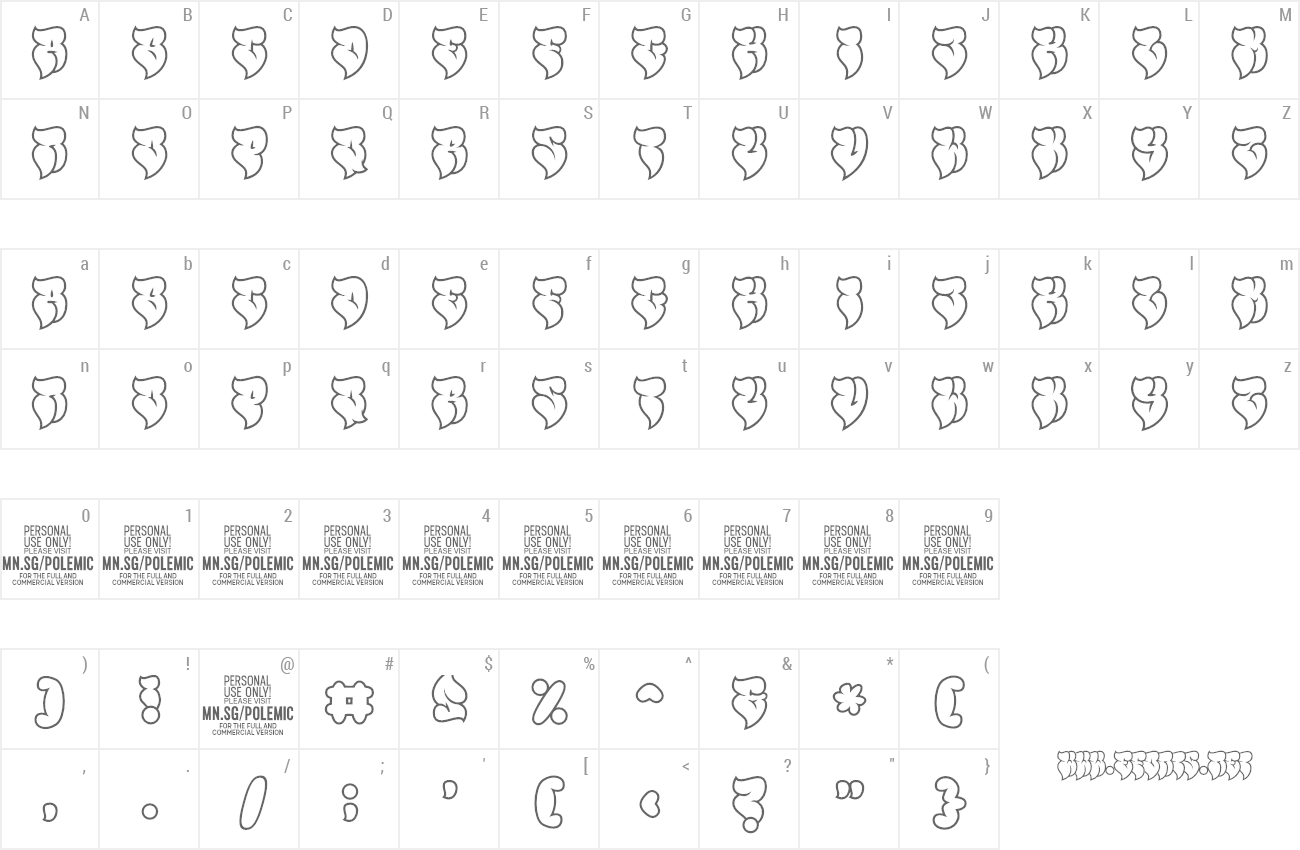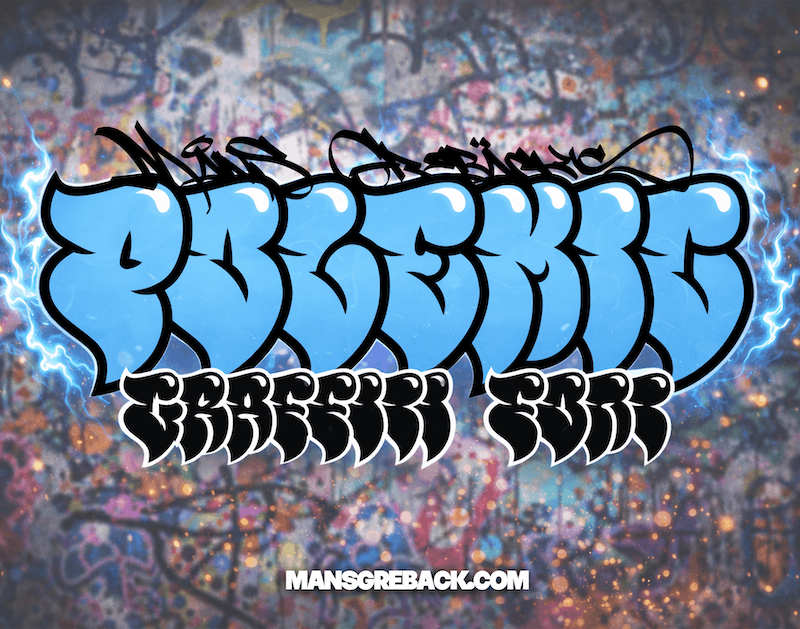
Preview and download Polemic Font. Created by Måns Grebäck in Script Graffiti styles with Free for personal use license.
NOTE: This font is for PERSONAL USE ONLY! To purchase a commercial license, visit: https://www.mansgreback.com/product/polemic Polemic is a graffiti-inspired font built for expressive lettering with depth and attitude. Its shapes are inflated and fluid, borrowing from throw-up tags and street pieces, with a rhythm that feels fast, confident and hand-driven. Activate *Contexual Alternates* in your software (Adobe, Office, etc.) to get a perfect overlapping effect! For questions, please visit https://mansgreback.com/faq |